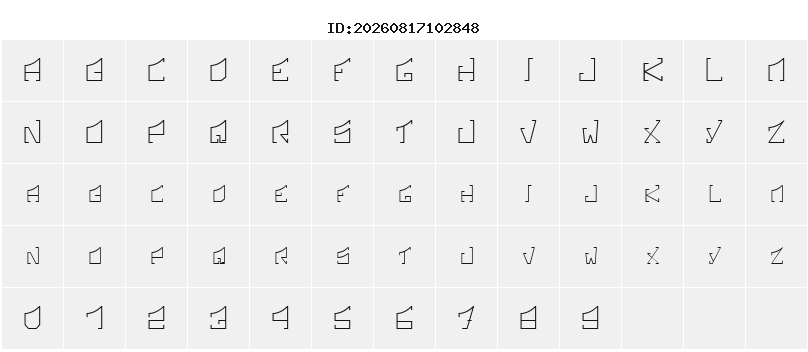
• Font Name: Sonic Boom
• Full Font Name: Sonic Boom
• Designer: Davide Lasagni
• Manufacturer: Davide Lasagni
About Sonic Boom.ttf
Sonic Boom.ttf is a modern, elegant sans-serif font designed for ultimate readability and visual harmony. Perfect for branding, headlines, web design, and print materials.